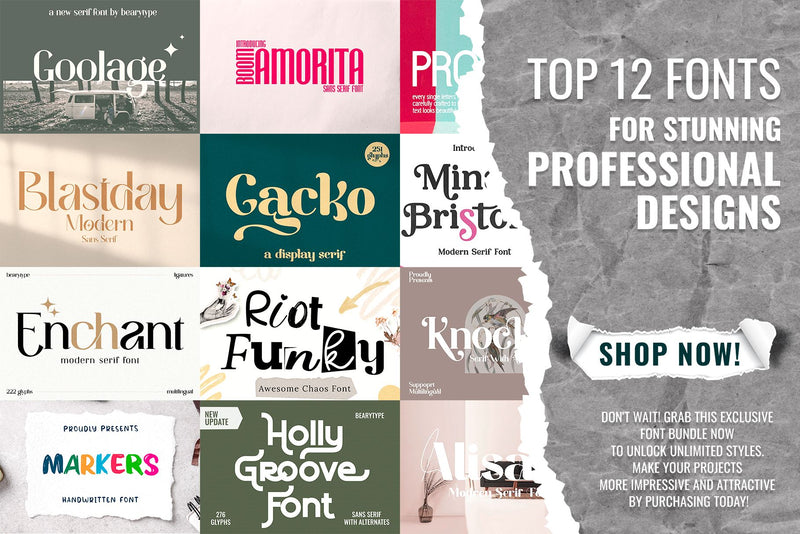
Top 12 Fonts for Stunning Professional Designs (FONT BUNDLE)
There's an exceptional font bundle you simply can't afford to miss, featuring the 12 best serif and sans-serif fonts. This collection grants you access to a diverse range of fonts, each possessing unique characteristics that will enrich your designs. On one hand, serif fonts exude a classic and formal impression, while sans-serif fonts bring a modern and clean touch that is crucial in the design world. Every font has been meticulously selected to ensure the highest quality and consistency, enabling you to apply them to various creative projects, from logo design to print and digital publications.
Within this font bundle, you will discover the perfect blend of classic and modern aesthetics. This presents a golden opportunity to elevate your creativity with these top 12 font choices. With stunning and professional designs, you can make your message stand out with captivating style and visuals. So, what are you waiting for? Seize this exclusive font bundle now and commence creating with limitless style. Do not delay any longer; purchase it today and enhance the appeal and impressiveness of your projects!